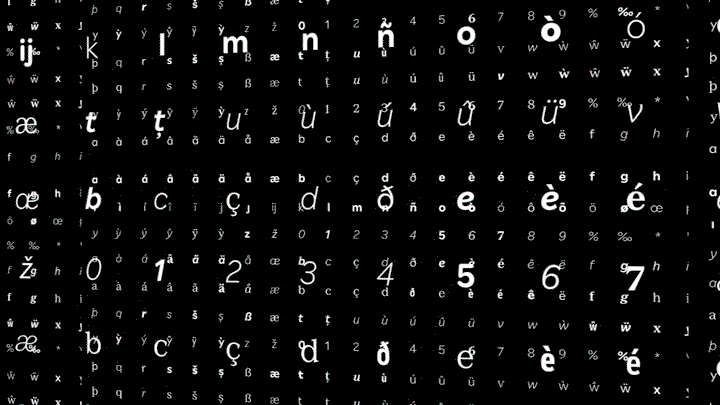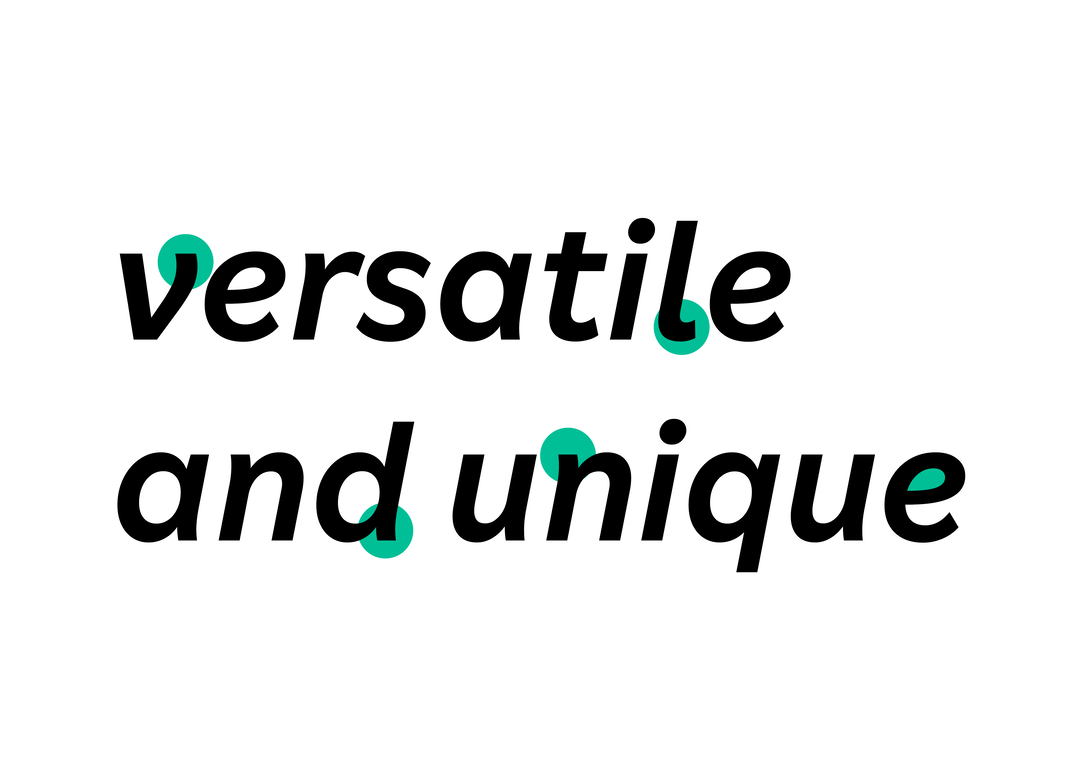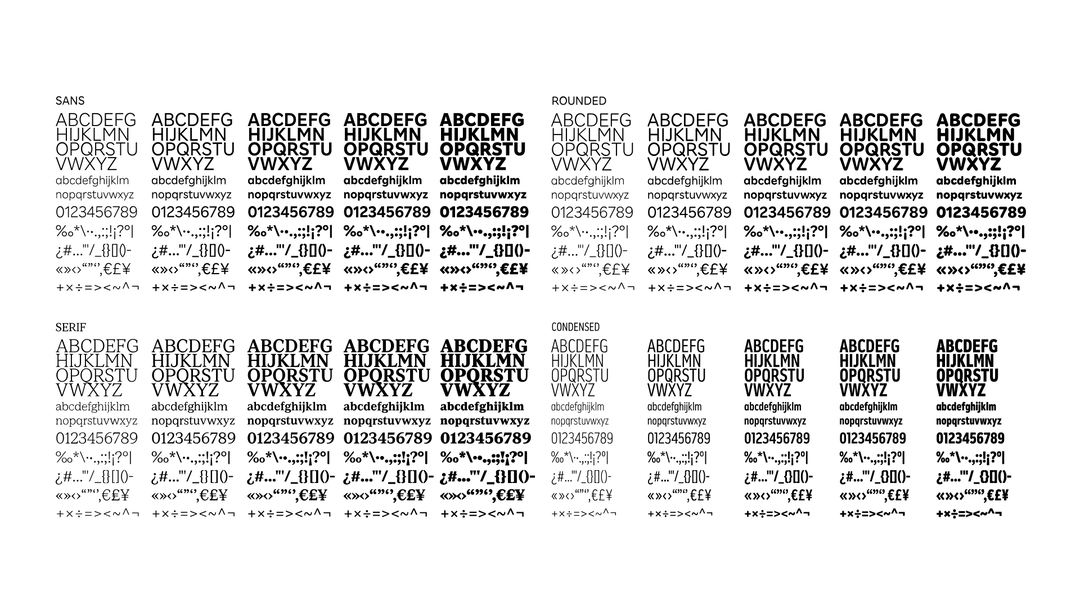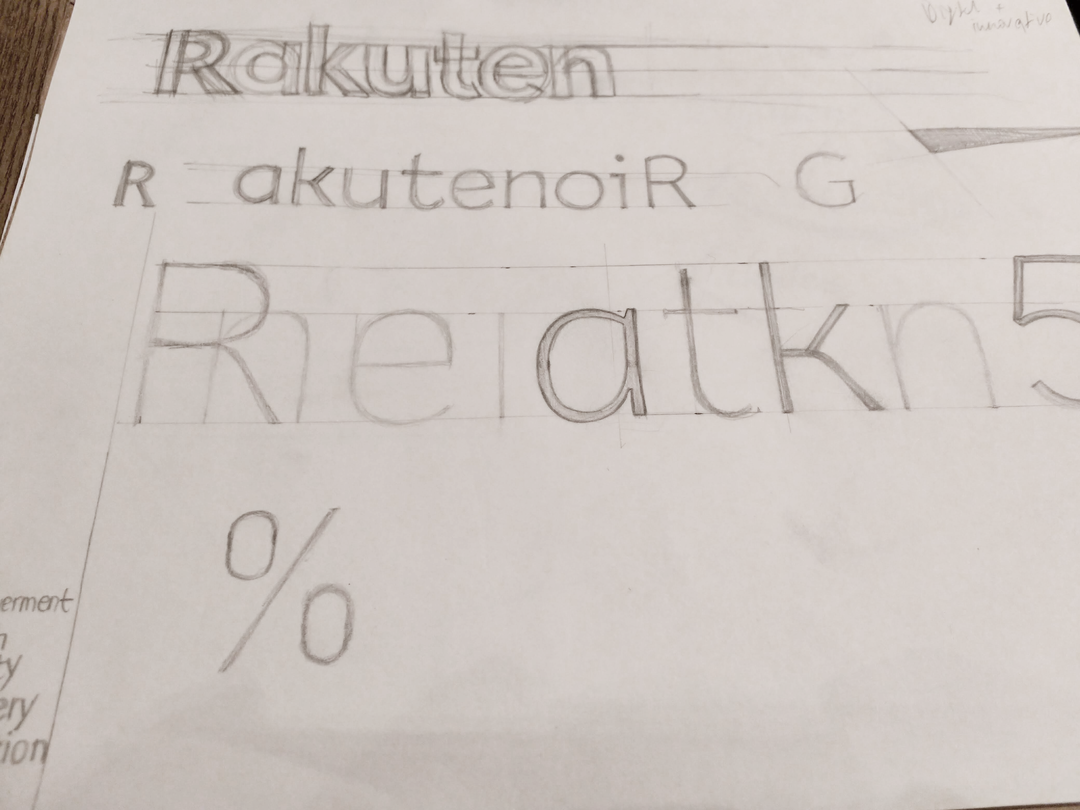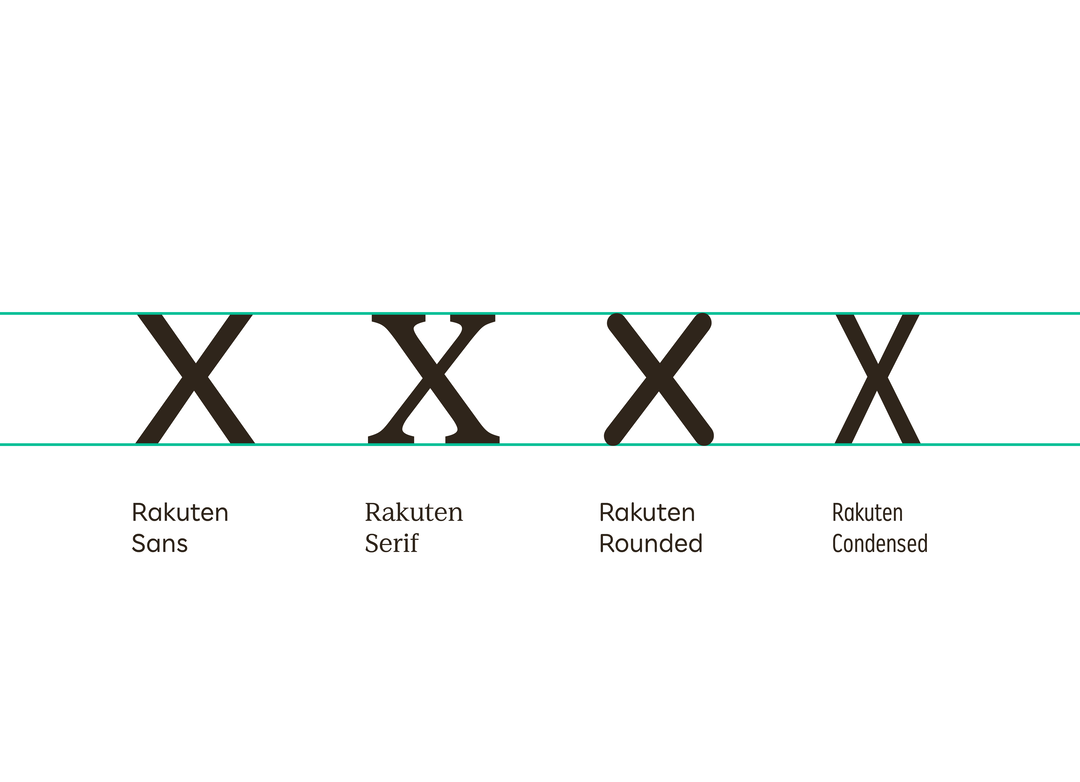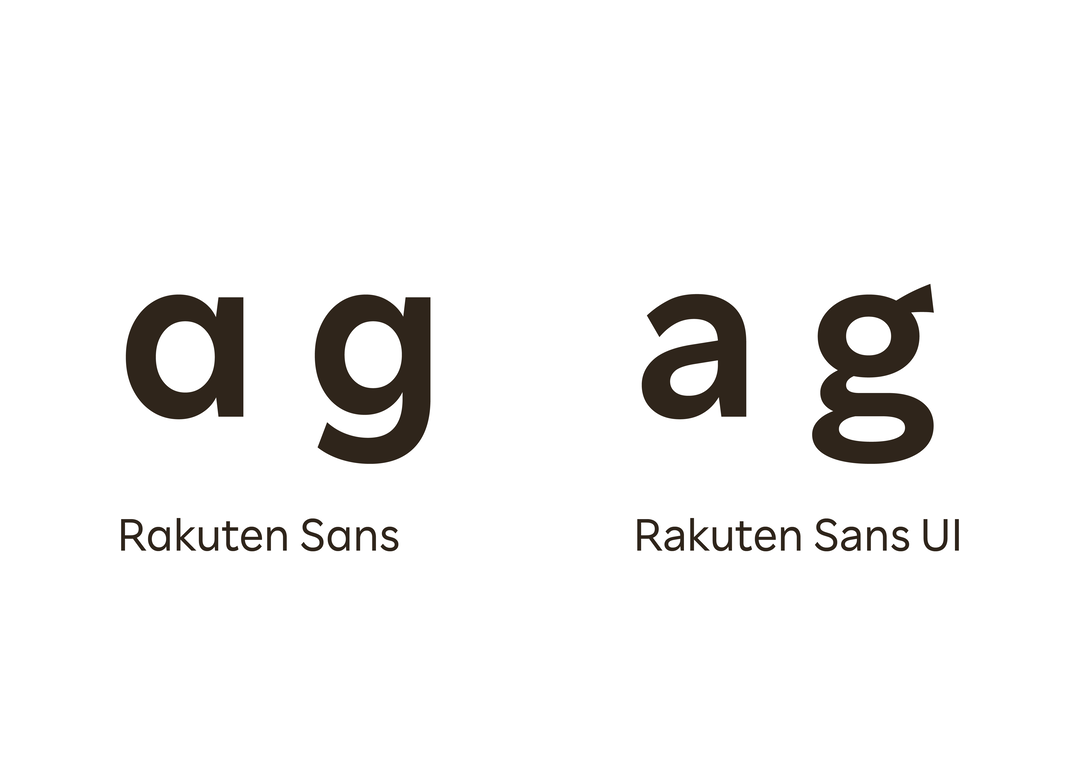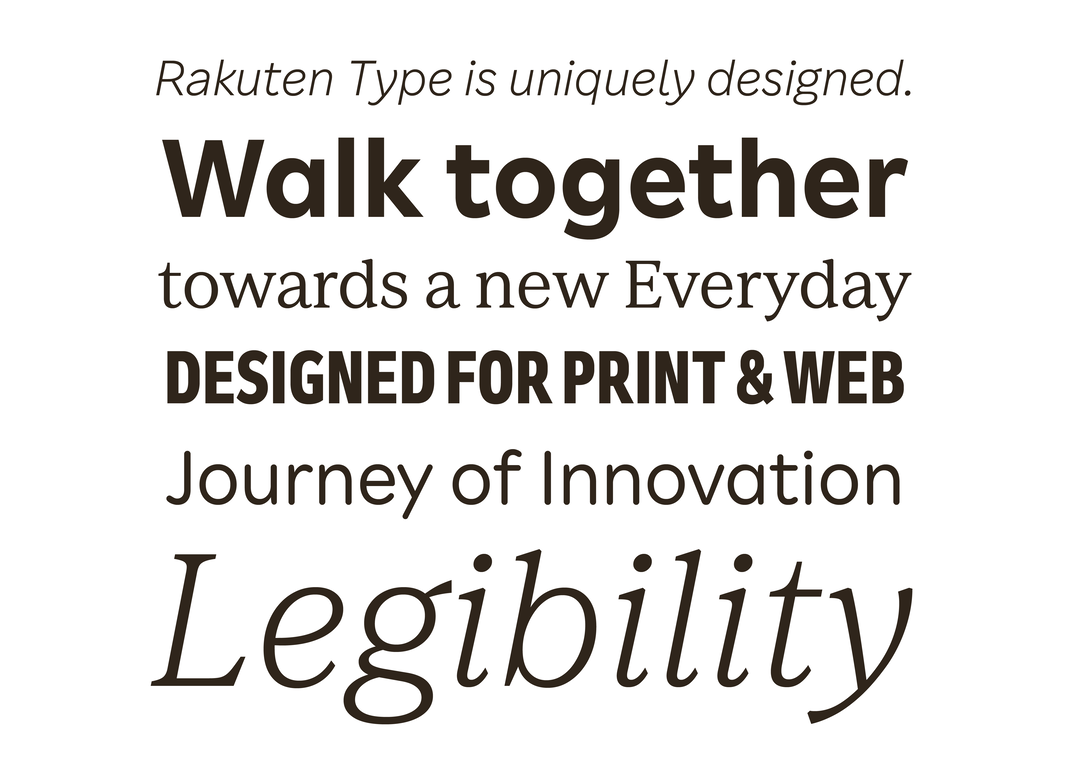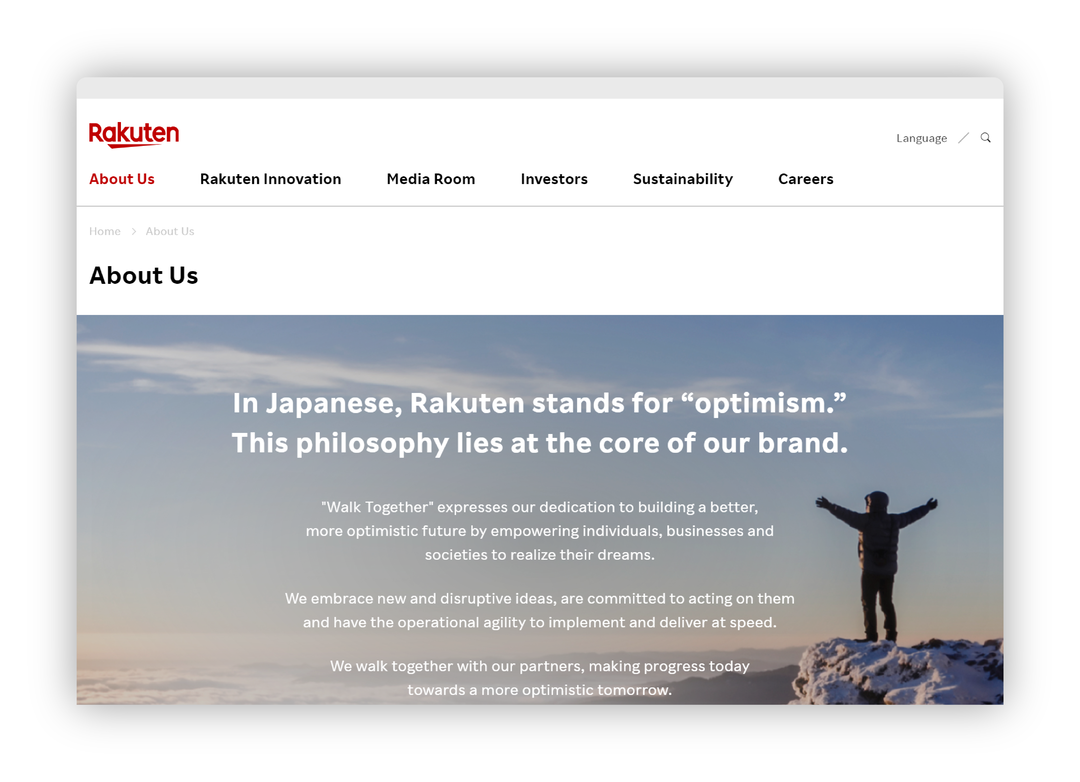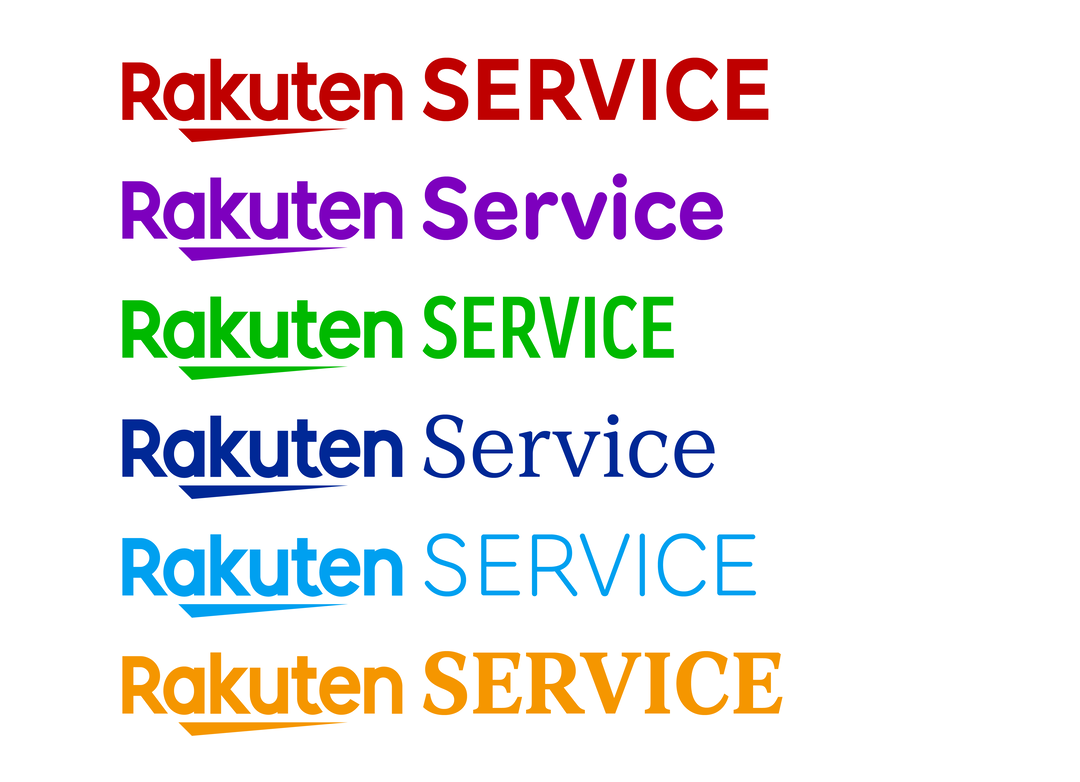
Rakuten reveals custom typeface by Dalton Maag to unify its global brand
The Japanese ecommerce giant worked with the London type studio to develop a family of four font styles which can adapt to its many different outlets around the world.
Tokyo-based ecommerce giant Rakuten has worked with London type design studio Dalton Maag to create a comprehensive font family bespoke to its brand. Aside from operating the largest online retailer in Japan, and the country's largest internet bank, it works in countless other sectors with over a billion members globally. Despite this, until now, it didn't have a typeface that linked them all. Though the company had its own typeface developed in 2012, it was designed before the group had grown to its current scale, leading its creative team to tack various new external fonts onto the branding.
The former typeface had “a distinct personality and served them well, but it focused predominantly on logo and title usage,” the Dalton Maag design team tells It’s Nice That. Plus Rakuten unveiled a new logo in 2018. With this and the addition of other fonts disconnecting the overall identity, Dalton Maag was enlisted to develop a large type system to include four different styles, to cater to its broadly varying needs. These are Rakuten Sans, Serif, Rounded and Condensed. On the Rakuten site, Sans is described as the “welcoming and accessible default,” for the brand’s identity, while Serif is used for “expressing elegance,” Rounded is more “fun and playful,” and Condensed is applied when the message needs to be “bold and impactful”. The styles all have distinctions but feel familial, responding to the concept of Ichi (meaning one) which is part of the brand’s ethos, and share common parameters such as the x-height and other vertical metrics, plus the font texture.
Dalton Maag summarises the font as clear and functional, “with the right tone of voice to support the distinct personality of the brand,” as well as adapt to the company's future development and changes. “In the Sans, the terminals of the round strokes of letters like ‘c’ have a slight flaring and are cut to a particular angle, which results in a crisp, sharp texture,” the Dalton Maag team describes. “This style is complemented by a “true italic”, rather than a simple oblique, making a lively organic voice available to the brand.”
Dalton Maag – which has previously developed typefaces for other huge global companies such as Airbnb, Facebook and Netflix – worked closely with Kashiwa Sato, Rakuten’s chief creative officer, and the Rakuten Design Lab to develop the typeface over many months, including an in-person workshop in Tokyo to kickstart the project. “Part of the purpose of the workshop was to understand how and where the typeface would be used,” explains the Dalton Maag team, “and together we defined a clear brief that could be taken forward into design – a geometric sans serif style that could act as a cornerstone for the brand, while retaining a subtle nod to Rakuten’s typographic heritage.”
The workshop also revealed that each of Rakuten’s brands had a need to speak to its own unique audience, with its own personality and tone of voice, while keeping in line with the default Sans design. This led to the four styles, which each have five weights. “Rakuten’s previous font had only limited styles,” the Rakuten Design Lab tells It’s Nice That, “and we faced a few challenges when using it to express the brand identities of our 70+ services in ways that suited their individual business goals. Our new font family gives us a variety of choices to best represent each service.”
While the Rakuten core logo hasn’t changed, each sub-brand’s design teams use the new type system to typeset their own logos. “This posed a challenge,” Dalton Maag says, “because the primary logo has a large x-height and relatively low cap height. While these work well in large sizes, they have the potential to negatively affect legibility if used for long form reading, and so couldn’t be carried through to the design of the new typeface.” The studio’s solution was to create a set of smaller capitals that would only be used in logo settings, matching the ratio between x-height and cap height and creating a cohesive feel across the logo lock-up. The Sans style features two different glyphs for the lowercase characters ‘a’ and ‘g’ for when font size effects readability. “Single-storey letter constructions help harmonise with the Rakuten logo, while double storey versions enhance legibility in UI settings,” concludes the studio.
The new Rakuten font is currently being rolled out globally.